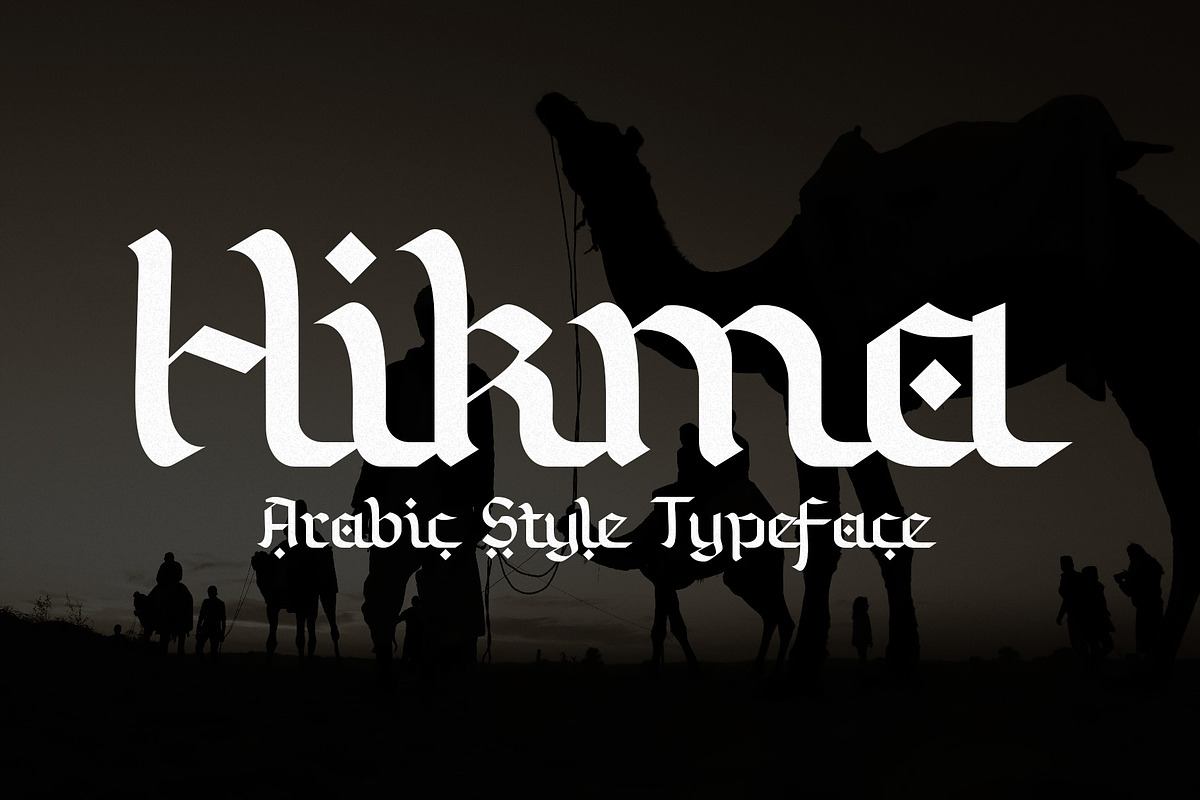
Please note that you must purchase this font for commercial use. You can download Hikma – Arabic Style Typeface for free, strictly for personal testing purposes only. Hikma is a beautifully crafted Arabic-inspired display typeface that blends traditional Middle Eastern design elements with modern typographic elegance. With ornate curves, calligraphic influence, and cultural richness, Hikma Arabic Style Typeface Free Download is perfect for Islamic art, Ramadan and Eid designs, restaurant branding, cultural event posters, logos, and editorial headlines.
Though designed in Latin script, the font mimics Arabic aesthetics—making it ideal for projects that want to evoke the spirit of Arabic calligraphy while maintaining readability in English. Hikma typically includes uppercase and lowercase letters, numerals, punctuation, and multilingual support.
Whether you're creating designs with a cultural focus or adding an exotic touch to your branding, Hikma brings authenticity, grace, and a timeless artistic vibe.